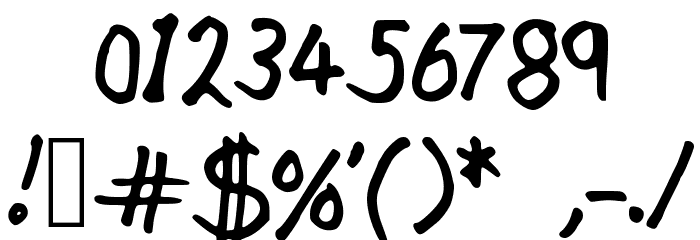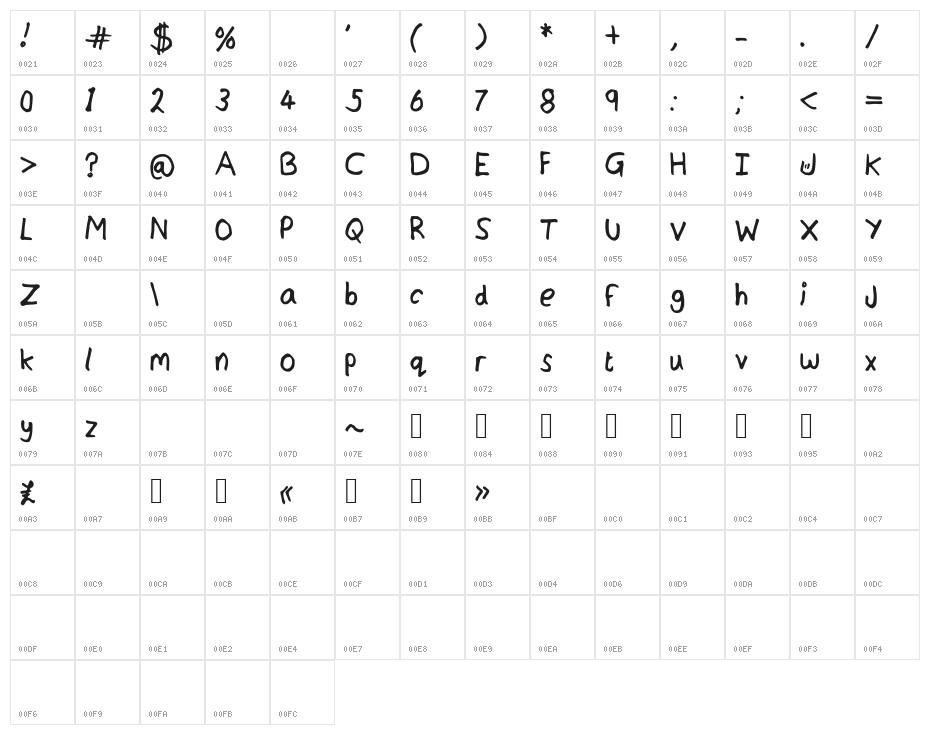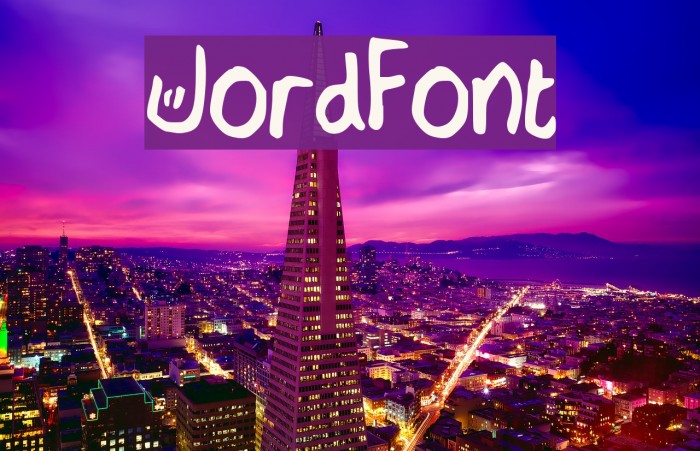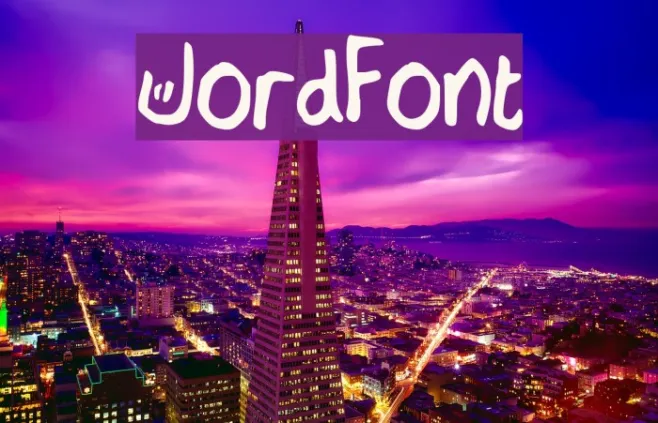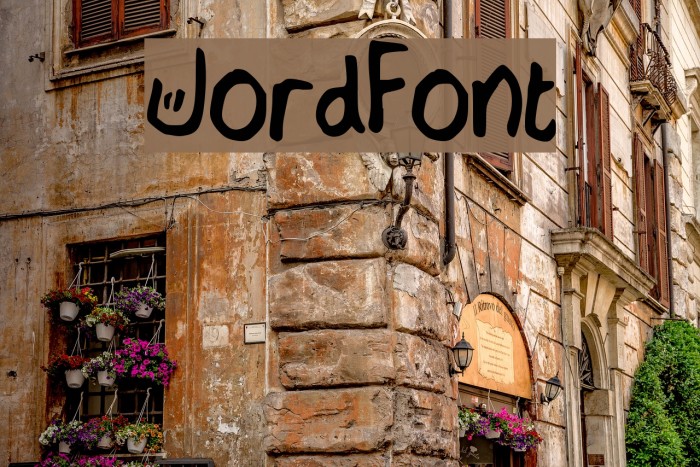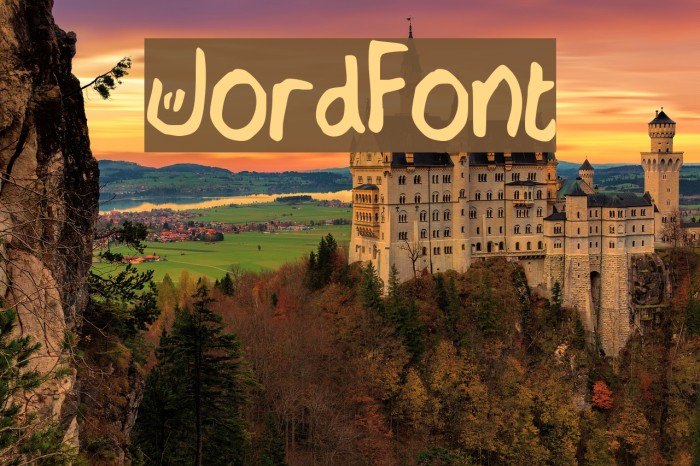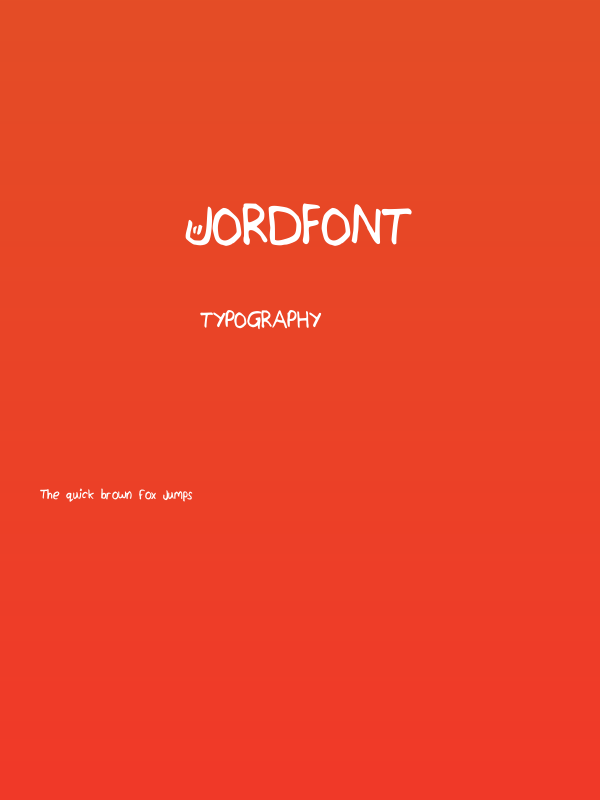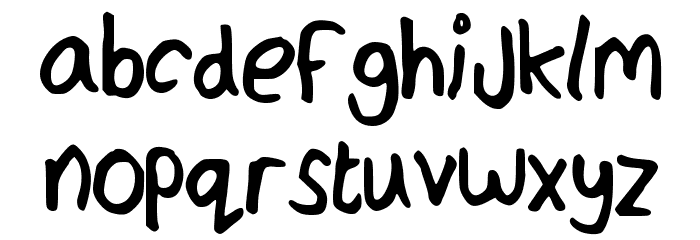
JordFont Font
JordFont Description
This playful and whimsical font features a handwritten style with a casual and friendly appearance. The characters are bold and rounded, with a slightly uneven baseline that adds to its charm. The uppercase letters are distinct and easily readable, while the lowercase letters maintain a consistent flow. Numbers and special characters are designed to match the playful aesthetic, making them suitable for creative projects. The font's informal style is perfect for projects that require a personal touch or a fun, lighthearted vibe.
| Use Case | Headlines, Logos, Informal Texts |
| Proposed Projects | Ideal for children's books, greeting cards, playful branding, and casual invitations. |